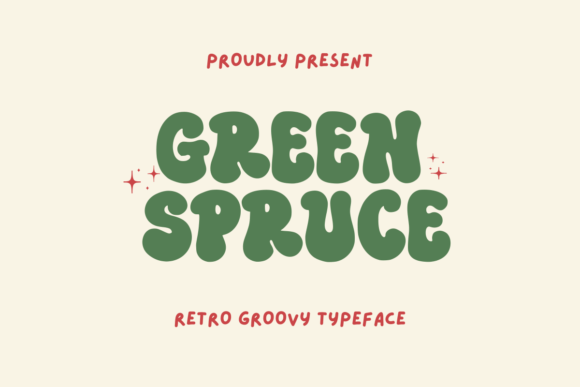
Introducing Green Spruce Font, a font designed to add a touch of cuteness and charm to your creative projects. Created by the talented Nadiratype, this whimsical and slightly quirky display font is guaranteed to bring a smile to your face.
With its unique and eye-catching design, Green Spruce Font is perfect for those looking to make a statement. Whether you're designing invitations, creating social media graphics, or crafting personalized gifts, this font will elevate your projects to a whole new level of creativity.
One of the key features of Green Spruce Font is its versatility. You can use it in a variety of contexts, from playful and fun to elegant and sophisticated. The font's charming curves and distinctive letterforms make it a great choice for anything from children's book covers to branding materials.
But what truly sets Green Spruce Font apart is its ability to evoke emotions. When users see your designs featuring this font, they won't be able to help but feel a sense of joy and warmth. It has the power to create an instant connection with your audience, making your message more memorable and impactful.
Not only is Green Spruce Font visually appealing, but it also offers a seamless user experience. Its smooth lines and easy readability make it a breeze to work with, ensuring that your creative process is both enjoyable and efficient. Say goodbye to frustrating font choices and hello to a font that effortlessly enhances your designs.
If you're looking for a font that stands out from the crowd, Green Spruce Font is the perfect choice. Its captivating design and emotional appeal will make your projects shine and leave a lasting impression on your audience. Whether you're a seasoned designer or just starting out, this font is a must-have in your toolkit.